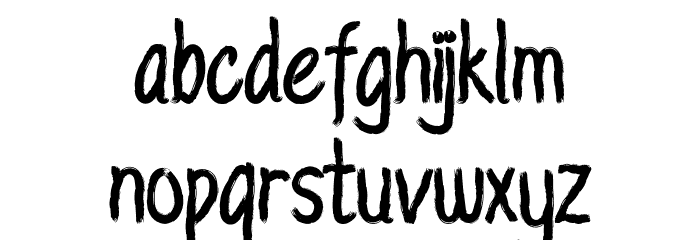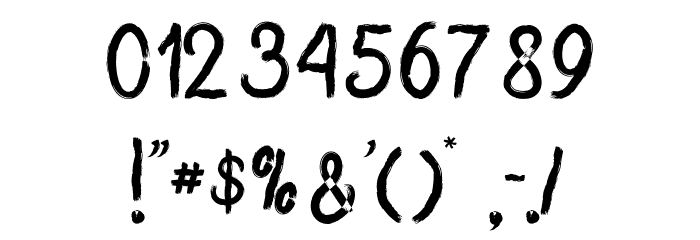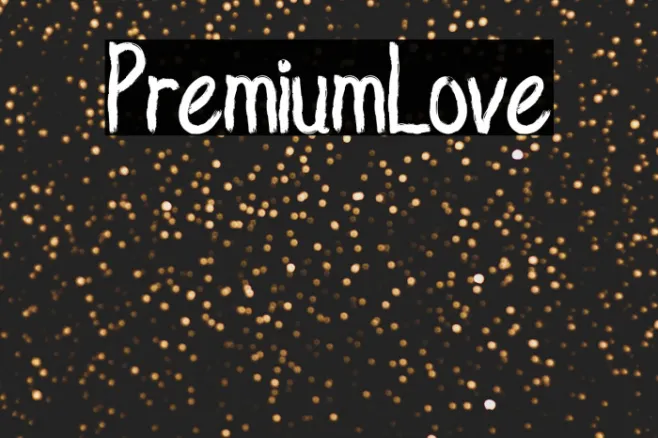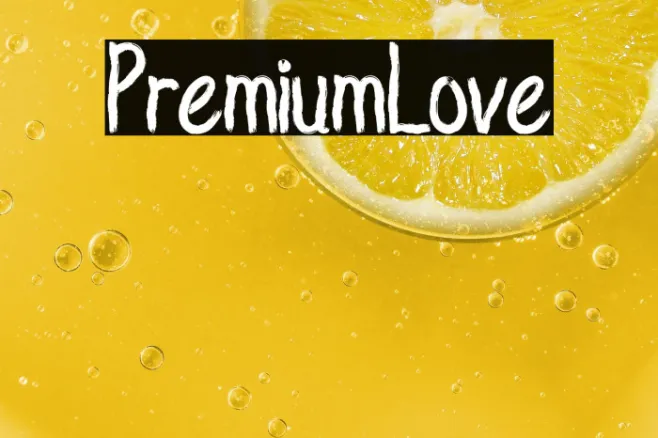
PremiumLove Font
This font features a playful and artistic handwritten style, characterized by its irregular strokes and slightly rough edges. The letters have a casual and informal appearance, with a natural flow that mimics the look of hand-drawn text. The uppercase and lowercase letters maintain a consistent style, while the numerals and special characters complement the overall aesthetic. The font's unique charm makes it suitable for creative projects that require a personal touch.
A playful handwritten font with irregular strokes and a casual style.
- Proposed Projects: Ideal for greeting cards, invitations, personal branding, and creative projects that require a personal touch.
- Use Case: Logos, Headlines, Creative projects